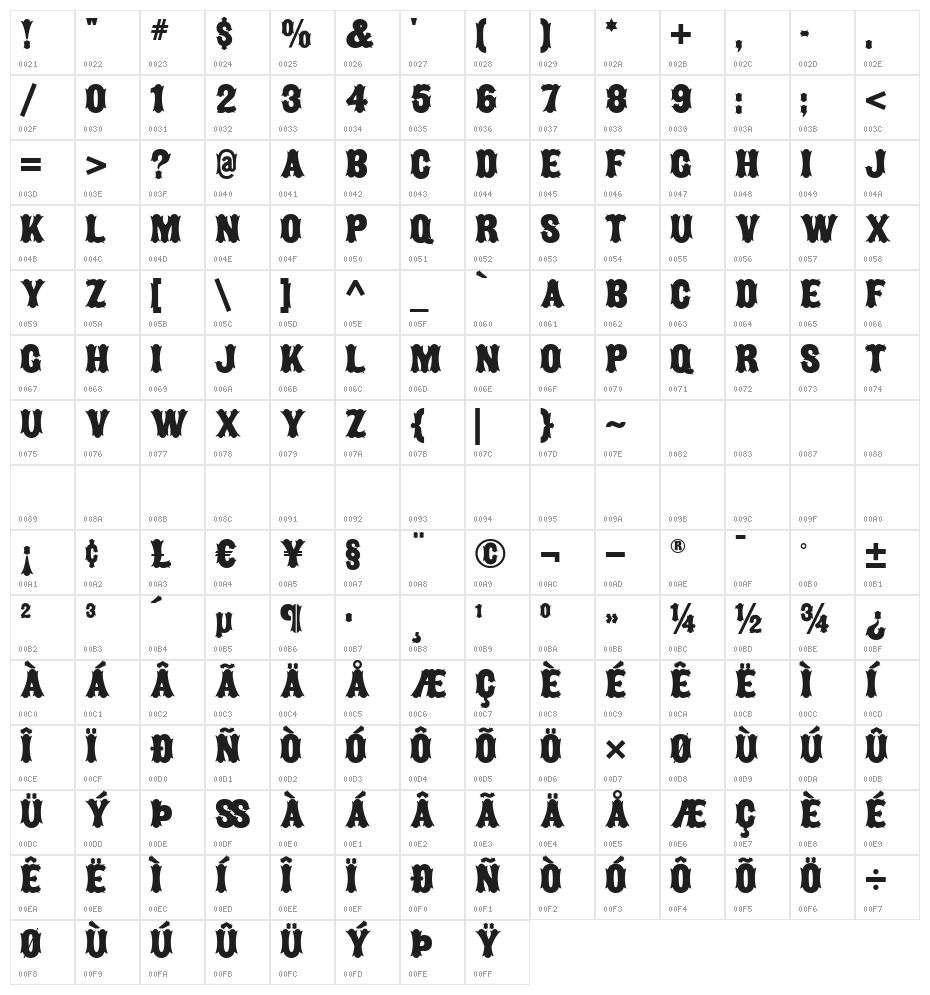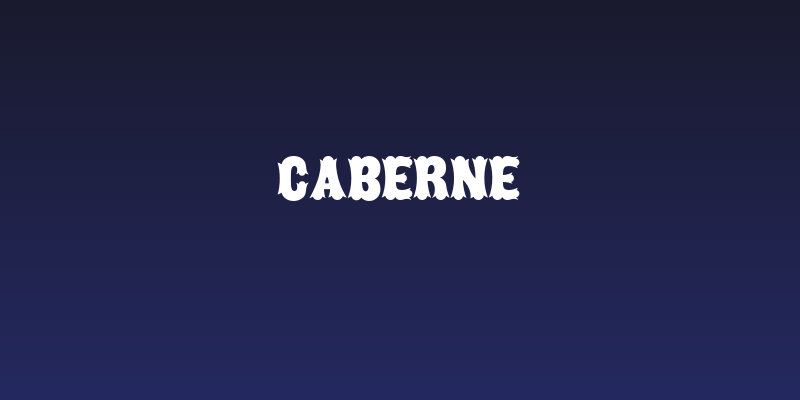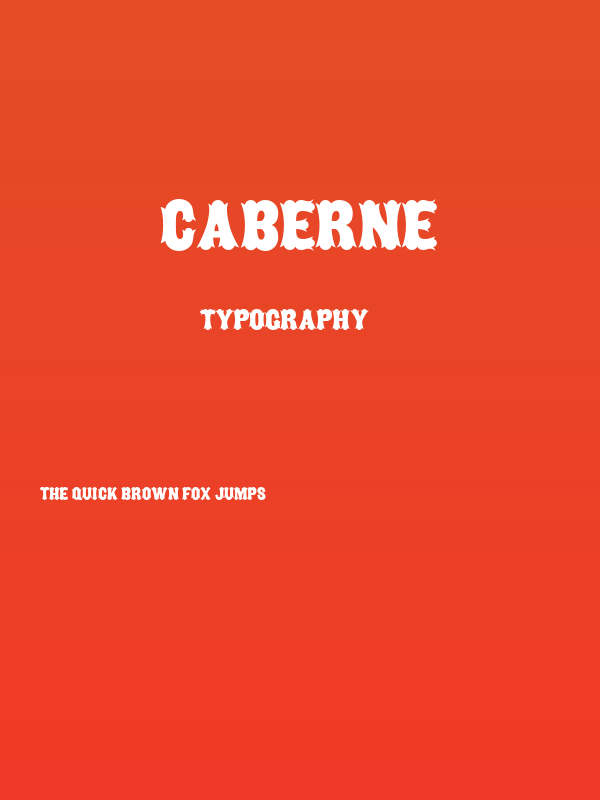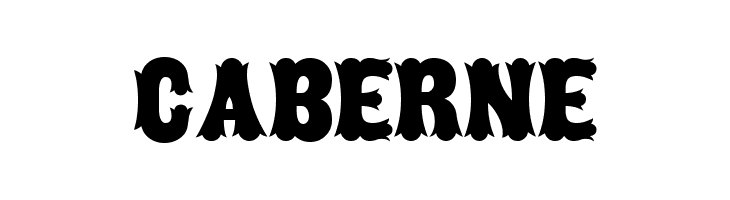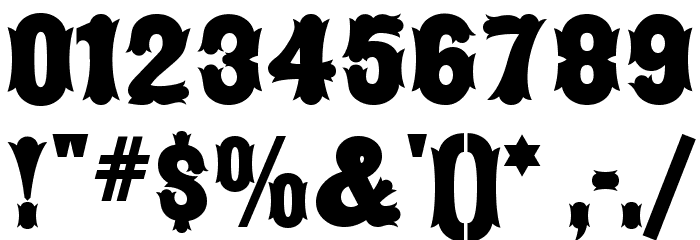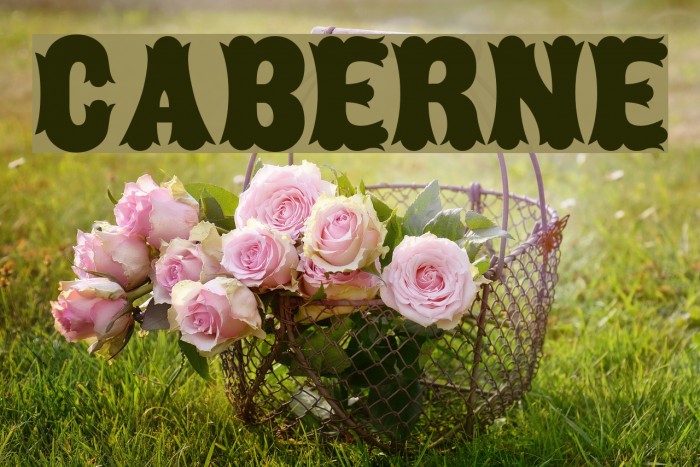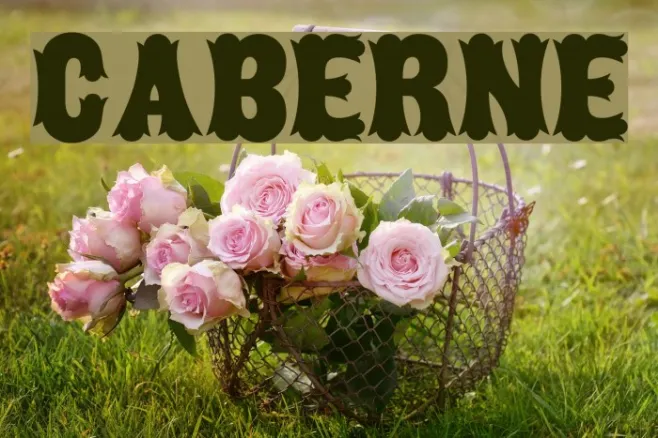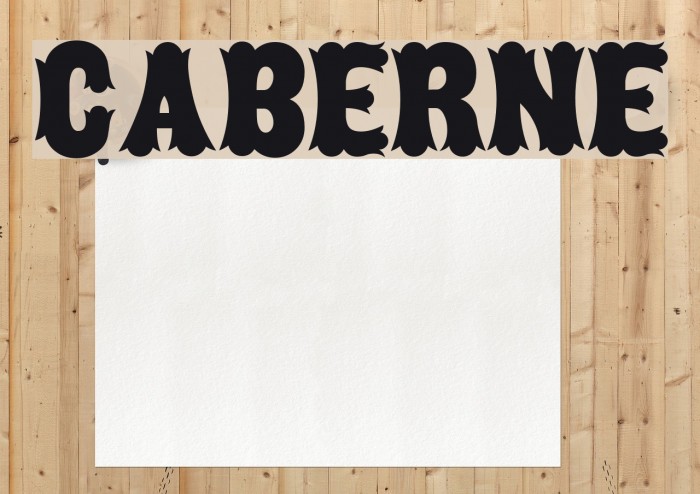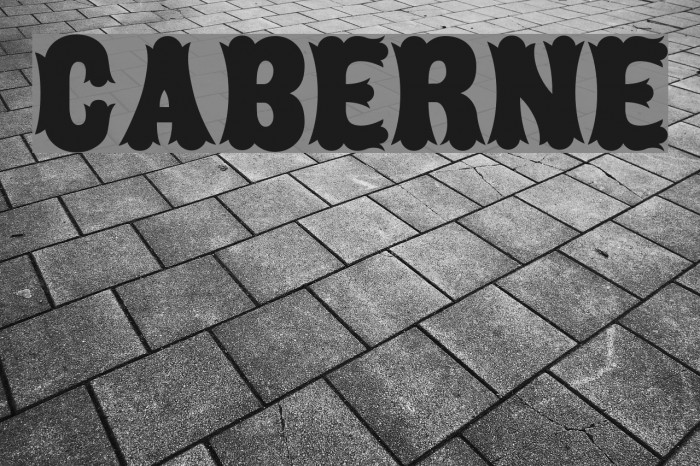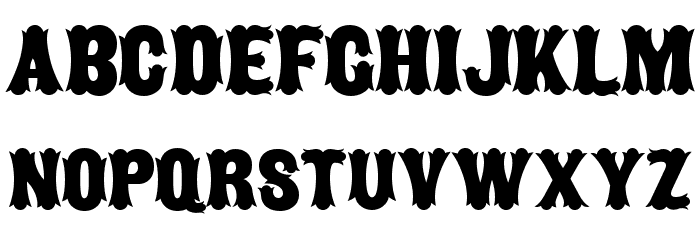
Caberne Font
Caberne Description
This font features a bold and dramatic style with thick, heavy strokes and a unique, decorative flair. The characters are designed with a high contrast between thick and thin lines, giving them a striking appearance. The serifs are pronounced and add to the overall boldness of the typeface. The font has a vintage, western-inspired aesthetic, making it ideal for projects that require a strong, eye-catching display. The spacing between characters is relatively tight, enhancing the compact and impactful look of the text.